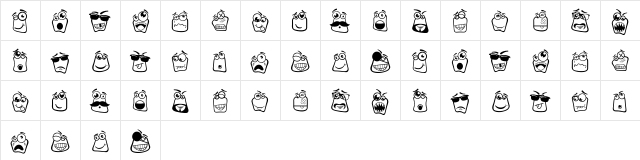
Alin Square Emoji Regular
Design Context for Alin Square Emoji Typeface
Alin Square Emoji is a composed and adaptable typeface that performs quietly and consistently across a wide range of design contexts.